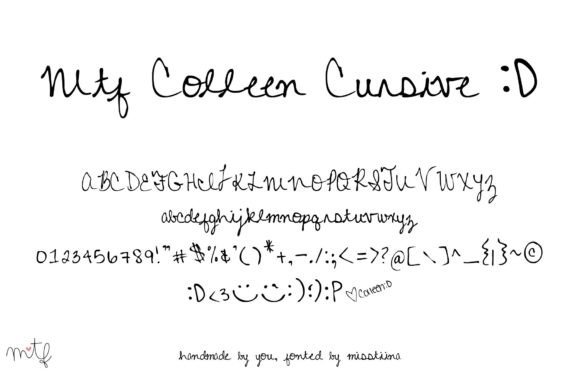
About Colleen Cursive Font
“Colleen Cursive looks like the writing of a princess. This natural and exquisite handwritten font will add that special handmade feel to your creations, while still keeping them classy and original.”
**Colleen Cursive** is more than just a font; it’s the essence of elegance and sophistication in the world of cursive handwriting. Crafted to resemble the writing of a princess, this font brings a natural and exquisite quality to your text, adding a special handmade feel while maintaining a classy and original look.
The cursive nature of **Colleen Cursive** is designed to evoke a sense of grace and charm. Each stroke is carefully crafted to create an overall look that is not only natural but also exudes a regal and princess-like aesthetic. This font is the perfect choice when you want your designs to carry an air of elegance.
Whether you’re working on invitations, stationery, or any project that requires a touch of refinement, **Colleen Cursive** is the font that brings a special and handmade feel to your creations. It’s a statement of class and originality that enhances the overall aesthetic of your text.
The versatility of **Colleen Cursive** allows it to seamlessly fit into a variety of design contexts while maintaining its regal charm. It’s the font that turns ordinary text into a piece of art, making your designs stand out with an exquisite and classy touch.
In summary, **Colleen Cursive** is the natural and exquisite handwritten font that adds a princess-like quality to your creations. Whether you’re aiming for elegance, sophistication, or a touch of regal charm, this font delivers a special handmade feel while keeping your designs classy and original.